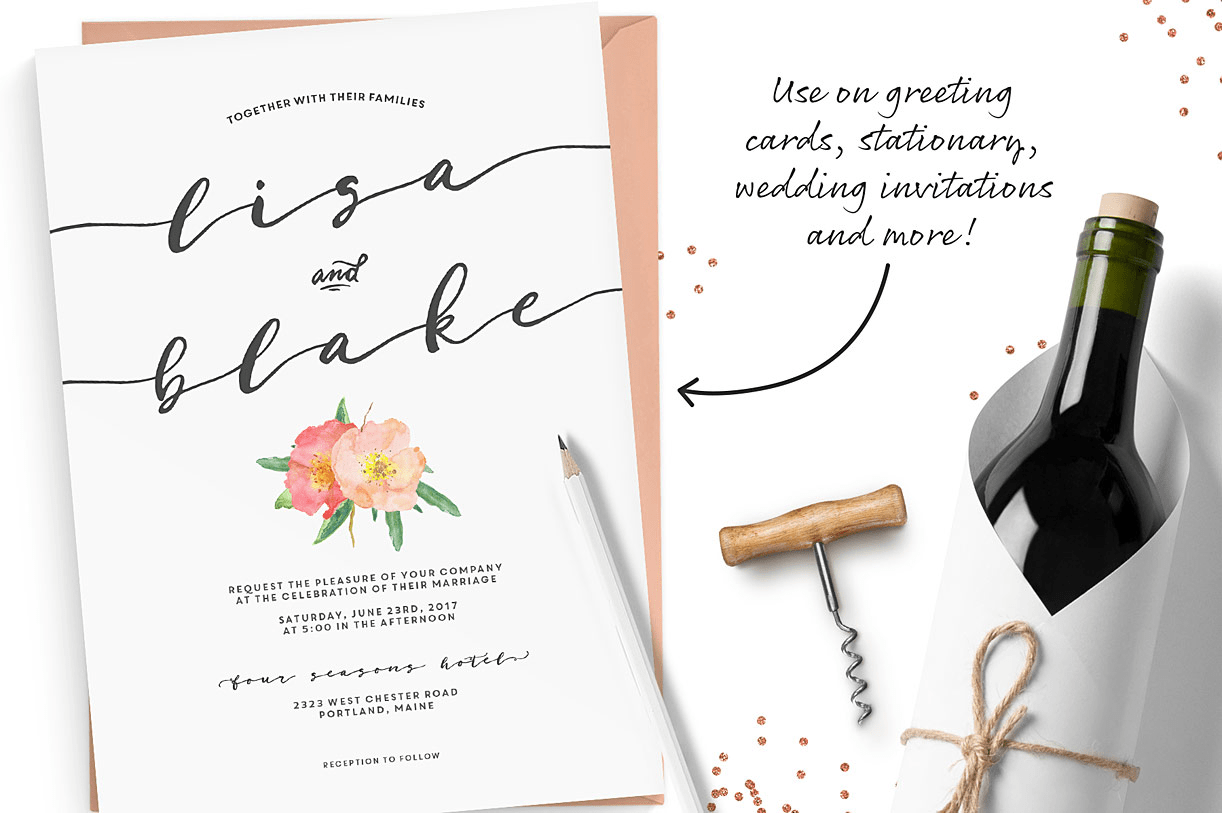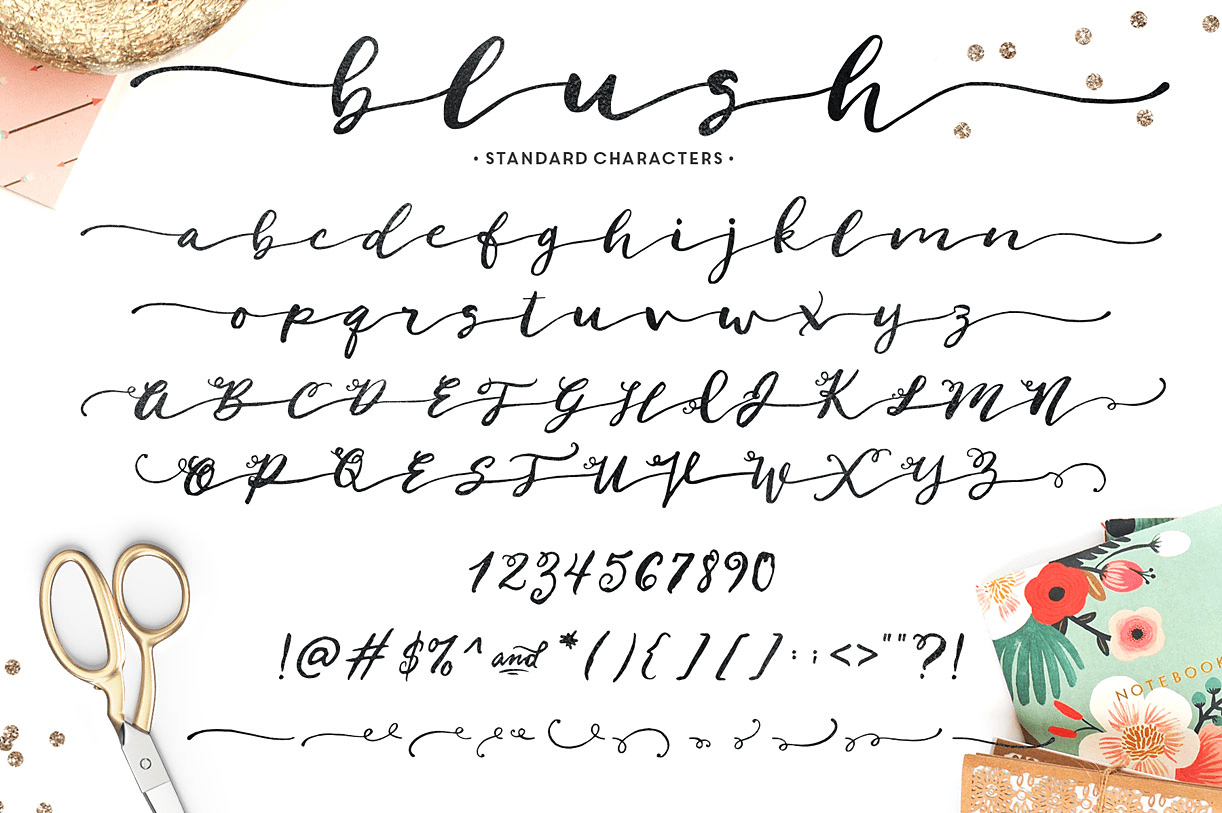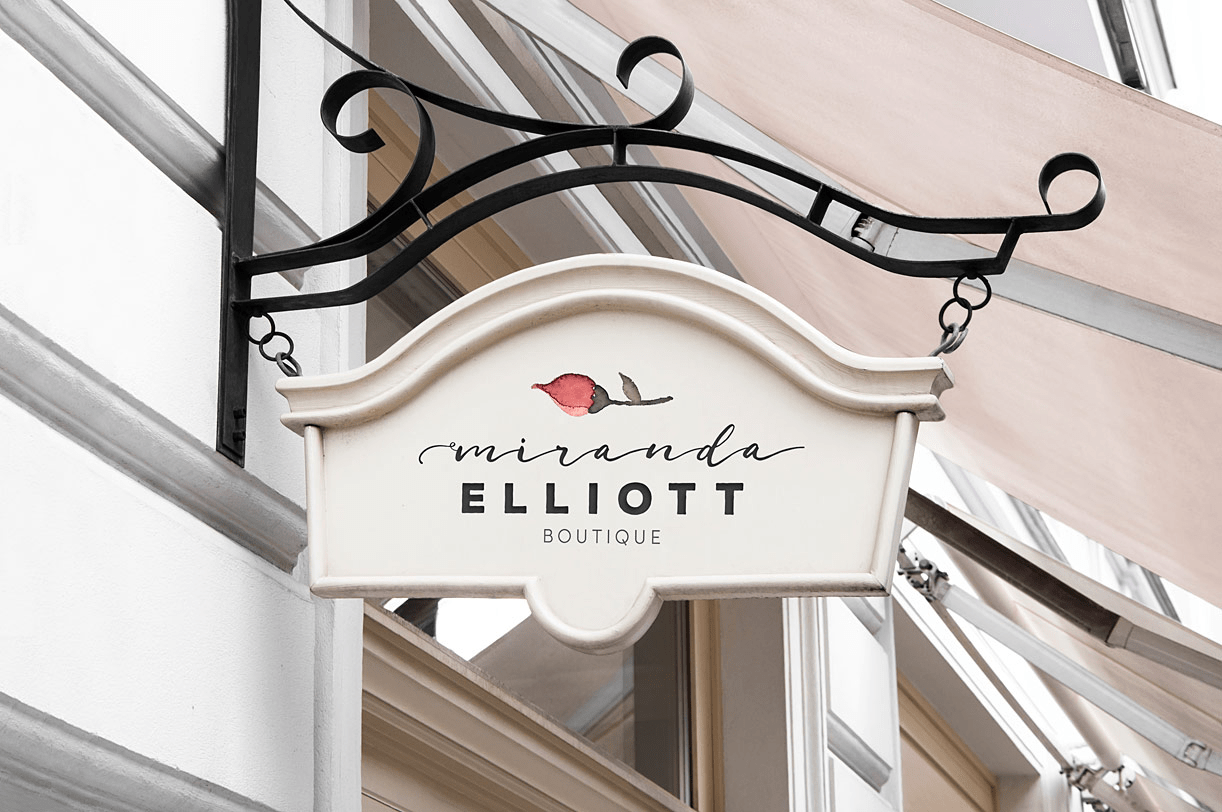
Blush looks beautiful on branding materials, logos, wedding invitations, greeting cards and more! You get the Blush typeface (OTF & TTF) with Western European Language Support, ligatures and decorative end characters. All right! Have fun! If you need…